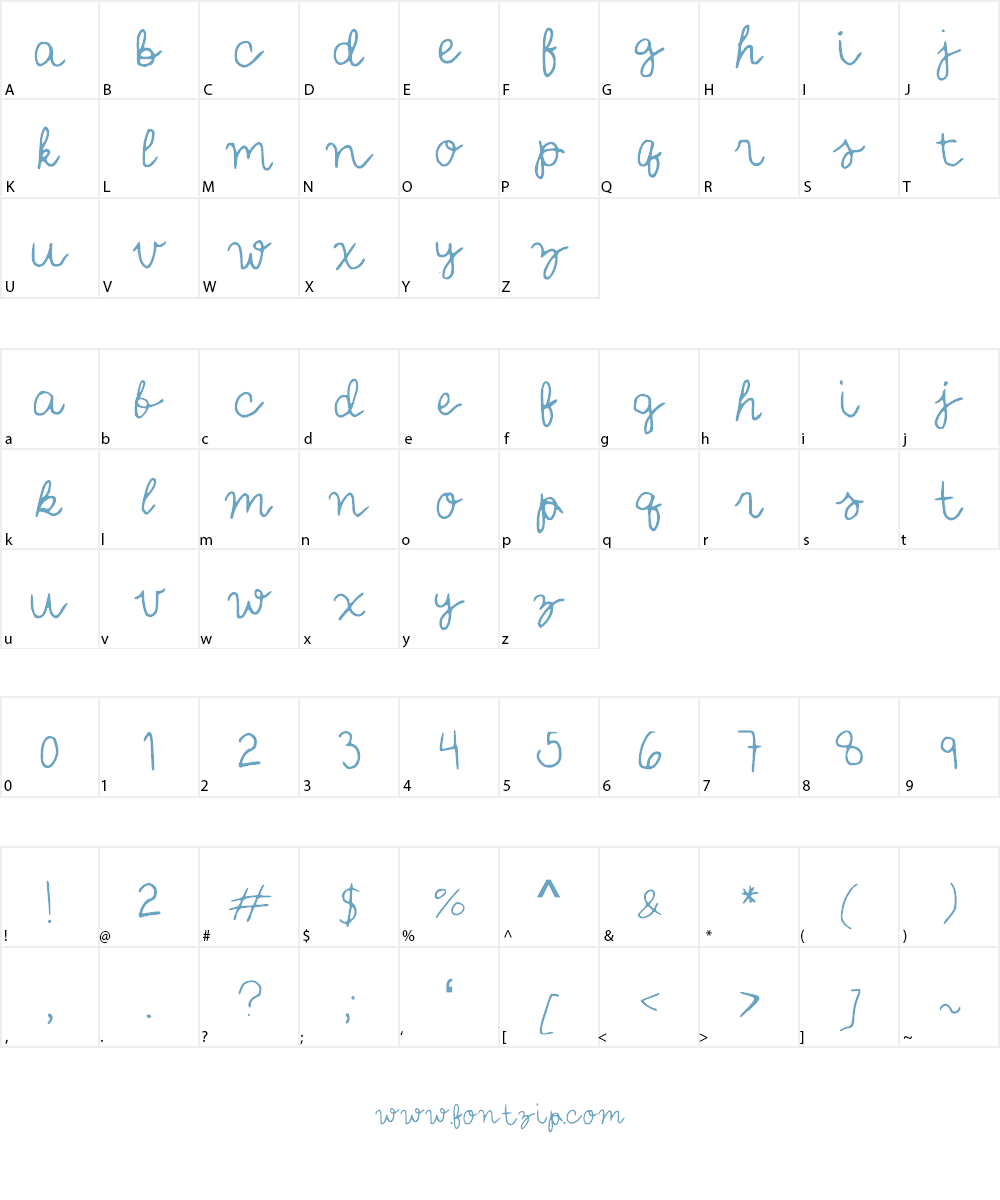
This font is inspired by soymilk and quick rodeo as they are my favourite fonts and if you want the characters to connect, just turn down the spacing :)